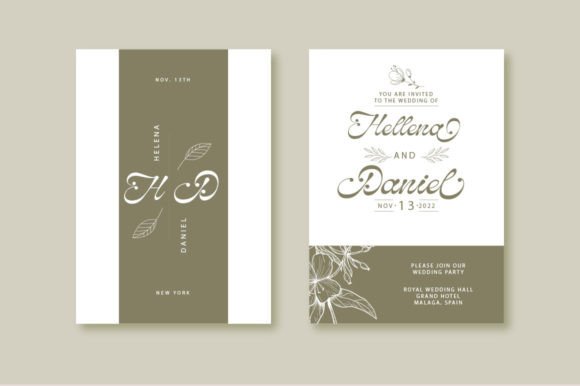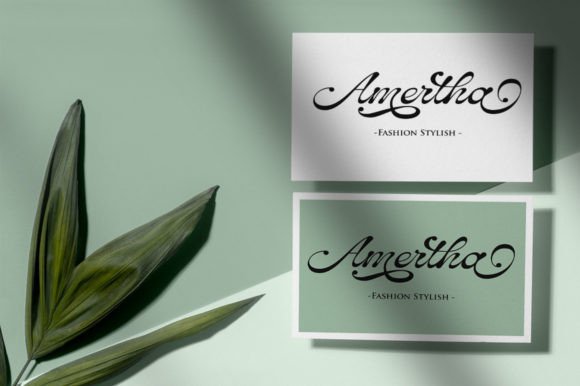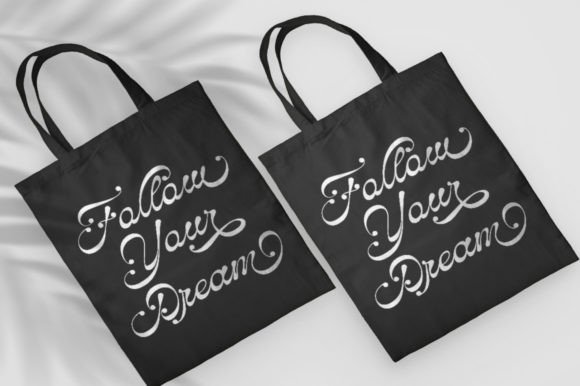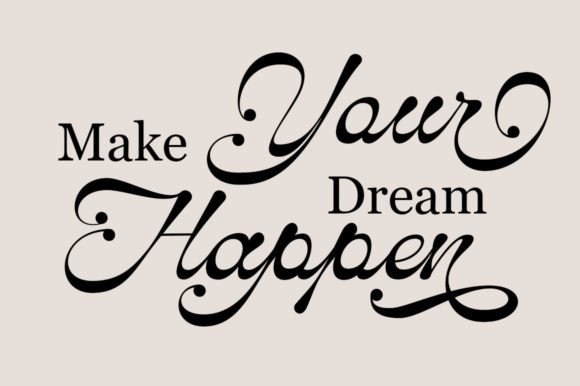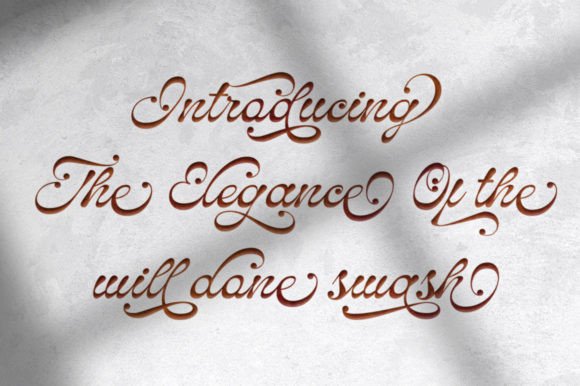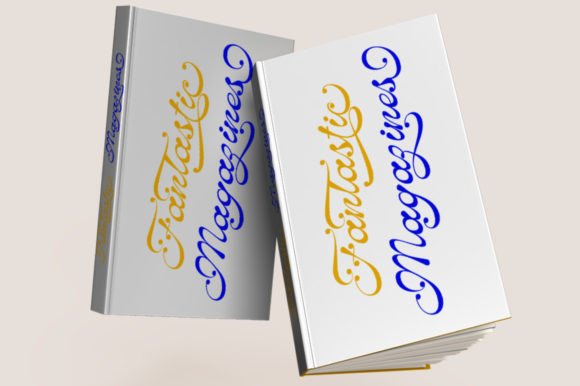
Gamila Font: Elevate Your Designs with Elegant Script Style
In the world of typography, a font can make or break the visual appeal of a design project. For designers and crafters seeking to add a touch of sophistication and elegance to their work, the Gamila Font is an excellent choice. This modern script font, inspired by classic handwriting found in books, is poised to transform your creative projects into stunning works of art.
The Inspiration Behind Gamila Font
Gamila Font draws its inspiration from the timeless beauty of classic handwriting in books. In an era dominated by digital communication, the charm of handwritten scripts offers a refreshing respite. This font captures the essence of traditional handwriting, bringing it into the modern age with a clean and contemporary twist. The result is a font that exudes warmth, elegance, and a sense of personal touch, perfect for designers looking to infuse their projects with a unique character.
One of the standout features of the Gamila Font is its incredible versatility. Whether you’re working on logotypes, printed quotes, invitations, cards, product packaging, headers, letterheads, clothing designs, web projects, magazines, or books, this font is perfectly suited to enhance the aesthetic appeal of your work. Its adaptability makes it an indispensable tool in the arsenal of designers and crafters who strive for excellence in their creative endeavors.
PUA Encoding for Ease of Use
The Gamila Font comes with PUA (Private Use Area) encoding, a feature that sets it apart from many other fonts. PUA encoding allows users to access all the glyphs and swashes easily, providing a seamless design experience. This means you can effortlessly incorporate the beautiful swashes and glyphs into your projects, adding an extra layer of sophistication and flair to your designs.
Why Choose Gamila Font?
- Elegant Aesthetic: Gamila Font adds a touch of elegance and sophistication to any design project, making it stand out.
- High Versatility: Suitable for a wide range of projects, from digital designs to print materials.
- Easy to Use: With PUA encoding, accessing glyphs and swashes is straightforward, saving you time and effort.
- Modern yet Classic: Combines the charm of classic handwriting with a modern twist, offering the best of both worlds.
Applications of Gamila Font
The possibilities are endless with Gamila Font. Here are some of the key areas where this font can make a significant impact:
- Logotypes and Branding: Create memorable and elegant logos that speak to your brand’s personality.
- Invitations and Cards: Add a personal touch to your invitations, greeting cards, and other personal correspondence.
- Product Packaging: Elevate your product packaging with a sophisticated and eye-catching design.
- Web Design: Use Gamila Font to create stunning website headers, banners, and more, bringing a touch of elegance to your online presence.
- Print Media: Ideal for magazine and book titles, adding a classic yet modern feel to your publications.
Gamila Font is more than just a typeface; it’s a design tool that can elevate your creative projects to new heights. Its elegant script style, inspired by the classic handwriting of traditional books, brings a unique blend of sophistication and charm to any design. With its versatility, ease of use thanks to PUA encoding, and wide range of applications, Gamila Font is an excellent addition to the toolkit of any designer or crafter looking to make a statement. Whether you’re aiming to create visually stunning logotypes, beautiful invitations, or captivating web designs, Gamila Font is the perfect choice to bring your creative visions to life.